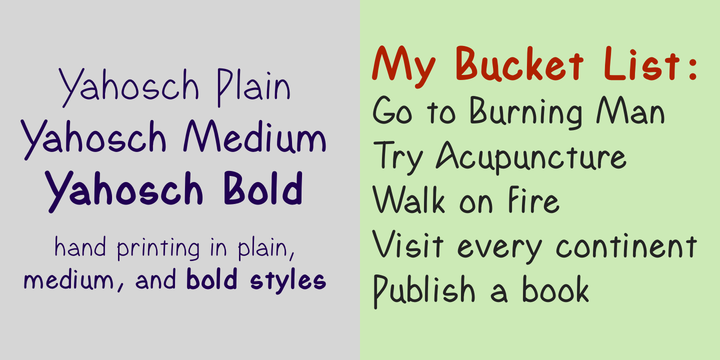
Yahosch
Designed by: Robert Schenk
Designed when: 1994
Yahosch
Yahosch is based on egg-shaped circular elements, with the larger part of the oval on the bottom. The thin is very readable even at smaller point sizes where it appears much like neat hand printing.